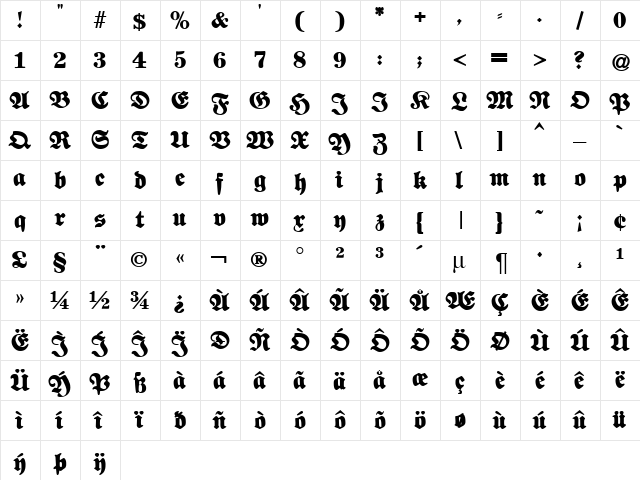
Fette National Fraktur Regular
| Foundry | Peter Wiegel |
| Designer | Peter Wiegel nach alter Vorlage |
Design Context for Fette National Fraktur Typeface
Fette National Fraktur channels the dramatic heritage of Fraktur and Gothic scripts, bringing a sense of historical gravitas to any design.
Well-suited to band logos, craft beer branding, tattoo lettering, and heritage-themed identities.
Font Pairing: Pair with a clean neutral sans-serif for body copy to let Fette National Fraktur's character lead without overwhelming the composition.
Pro Tip: Use Fette National Fraktur sparingly at large sizes. Even a single word set in blackletter can define the visual register of an entire design.